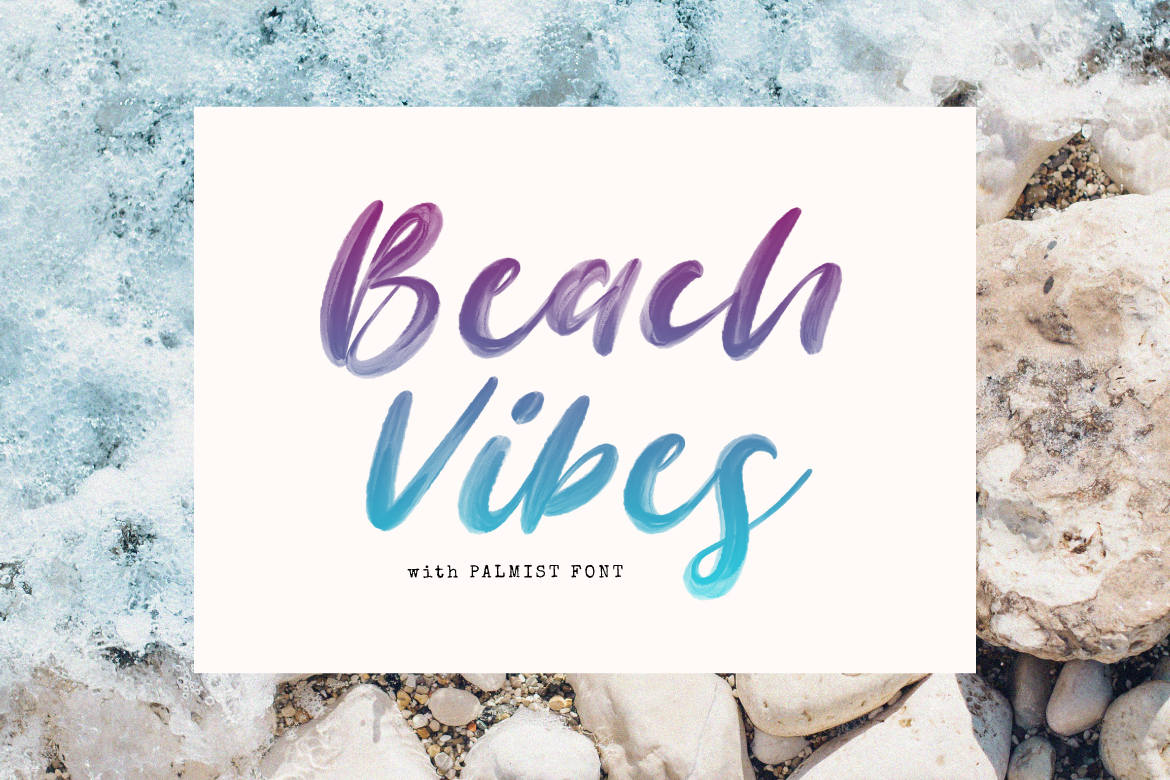
Palmist – SVG Script Font
Palmist – SVG Script Font.
A beautiful script font with an awesome paint texture. There are 2 styles, namely (Regular) & (SVG). Looks natural and very pleasing to the eye. Great for wedding invitation designs, quotes, branding, product packaging etc.
- Features: Uppercase, Lowercase, Numeral, Punctuation, Multilingual & Ligatures.